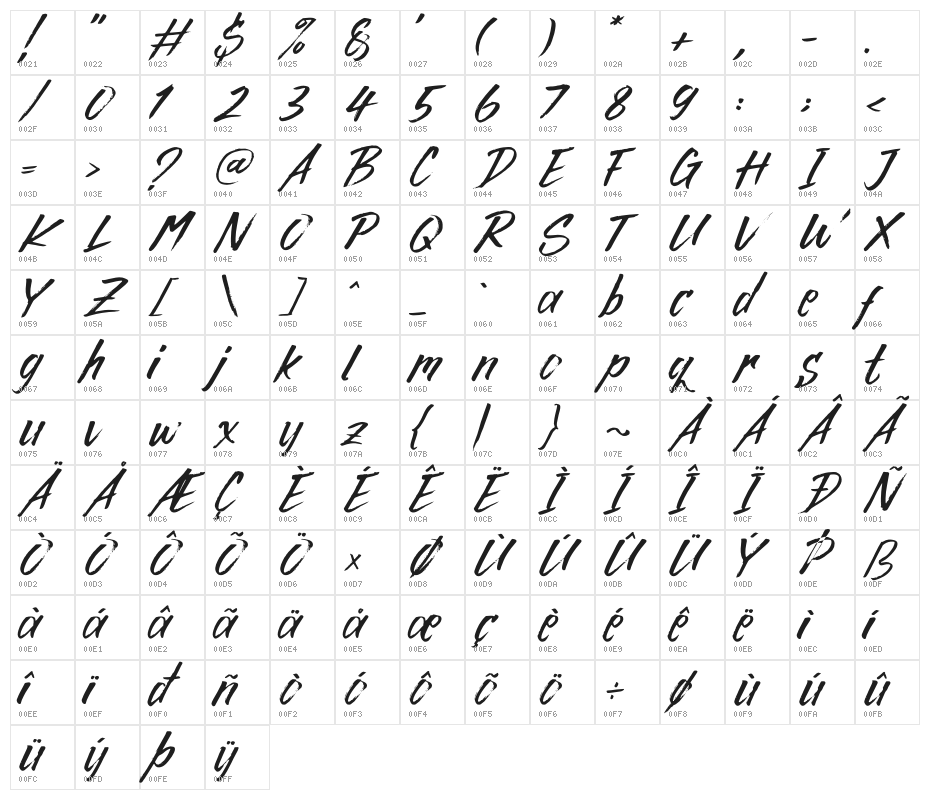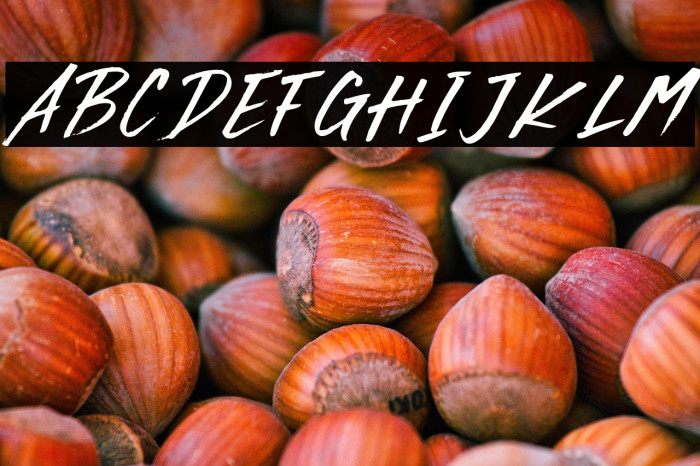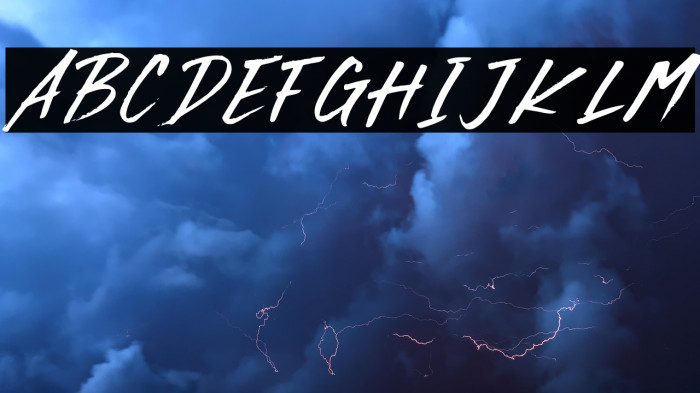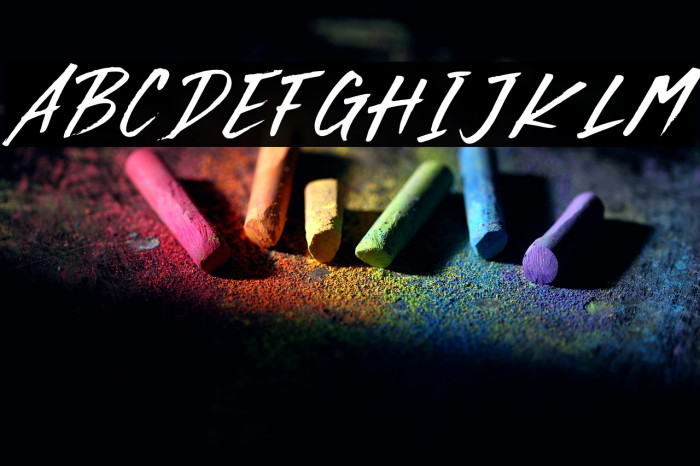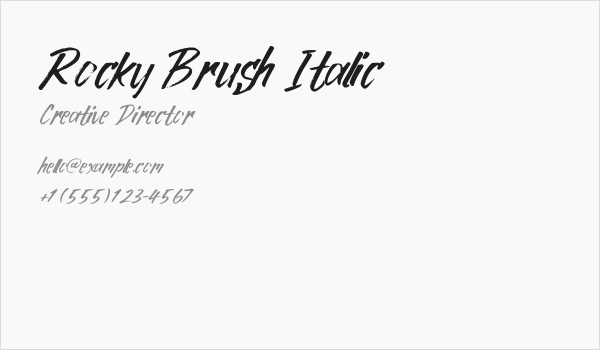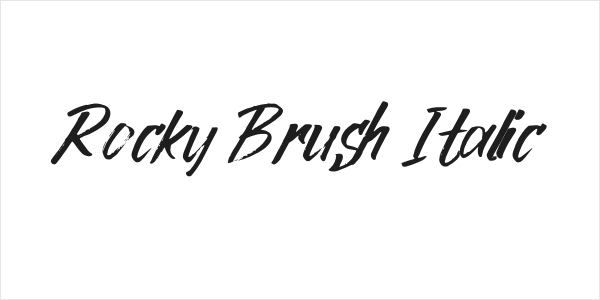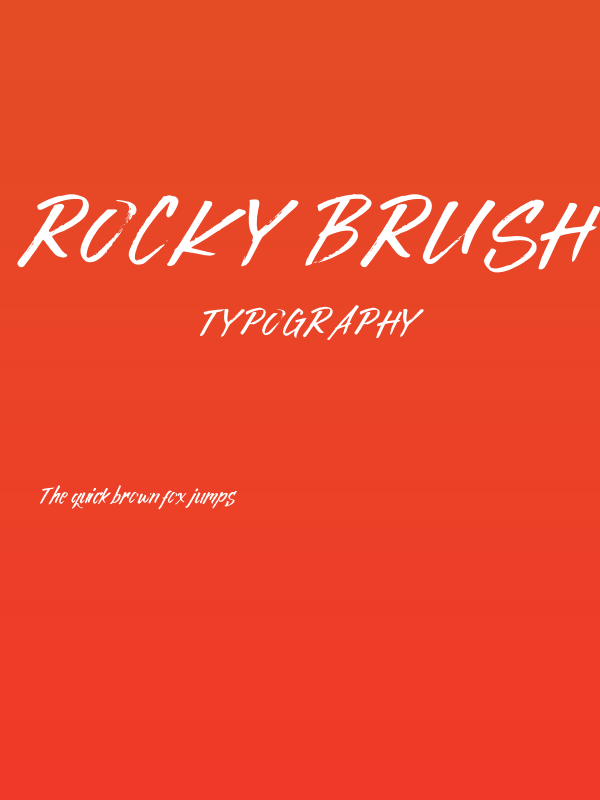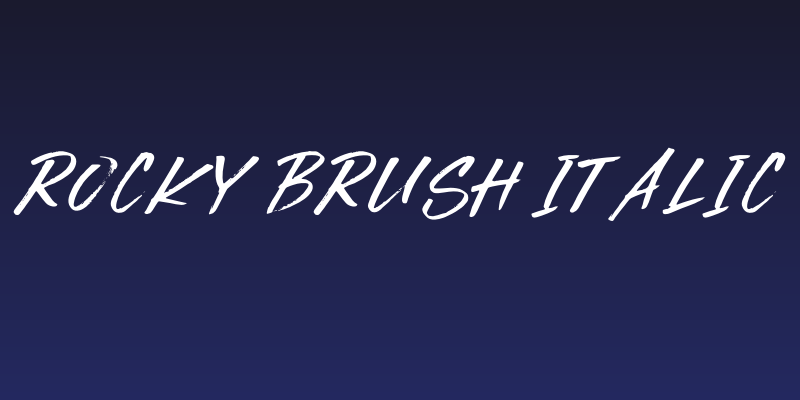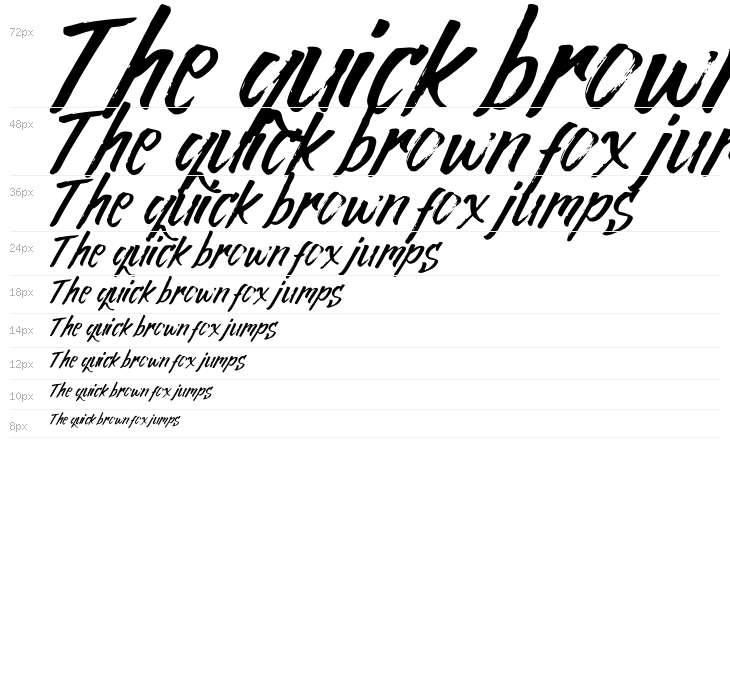
Rocky Brush Italic Font
Rocky Brush Italic Description
This font exudes a dynamic and energetic feel, characterized by its bold, brush-like strokes that give it a hand-painted appearance. The letters are slanted, adding a sense of motion and fluidity, while the varying thickness in the strokes provides a lively contrast. The uppercase letters are slightly more restrained, maintaining legibility, while the lowercase letters exhibit a more expressive style. The numbers and special characters follow the same energetic theme, making the font suitable for projects that require a bold and artistic touch.
| Proposed Projects | Ideal for posters, branding, packaging, and any design that requires a bold, artistic flair. |